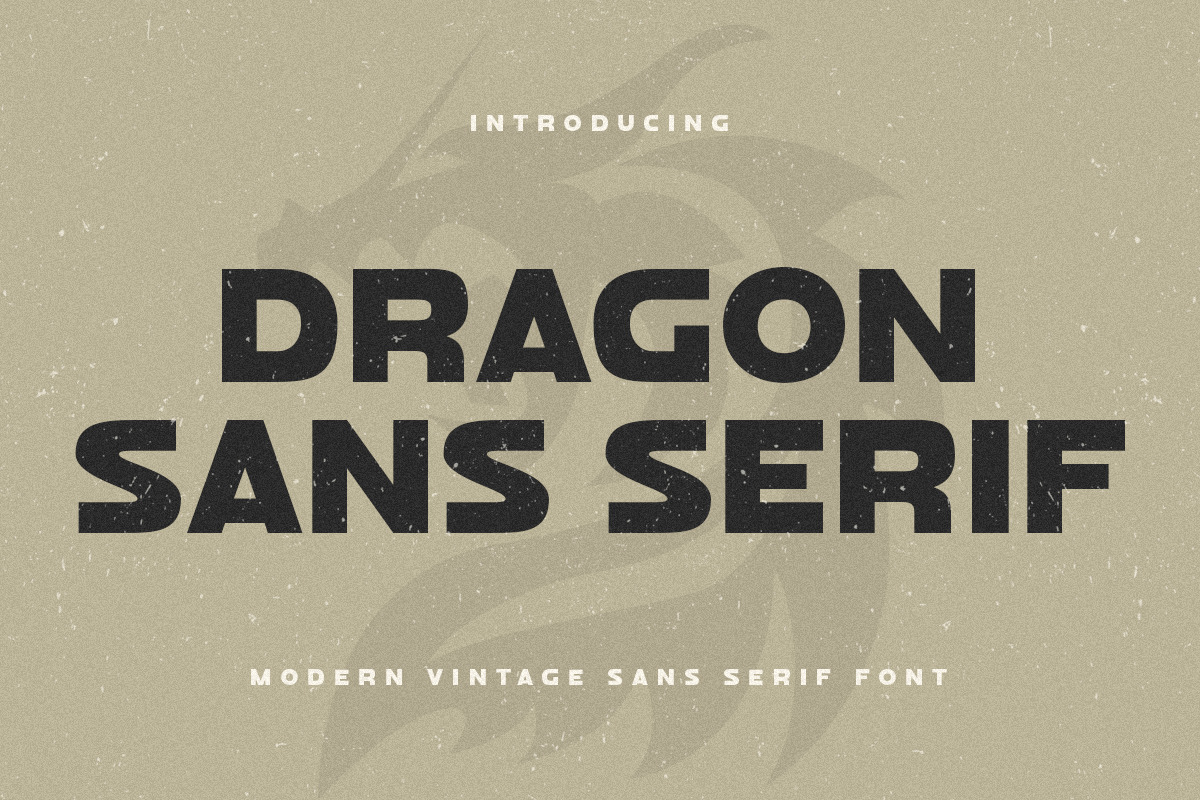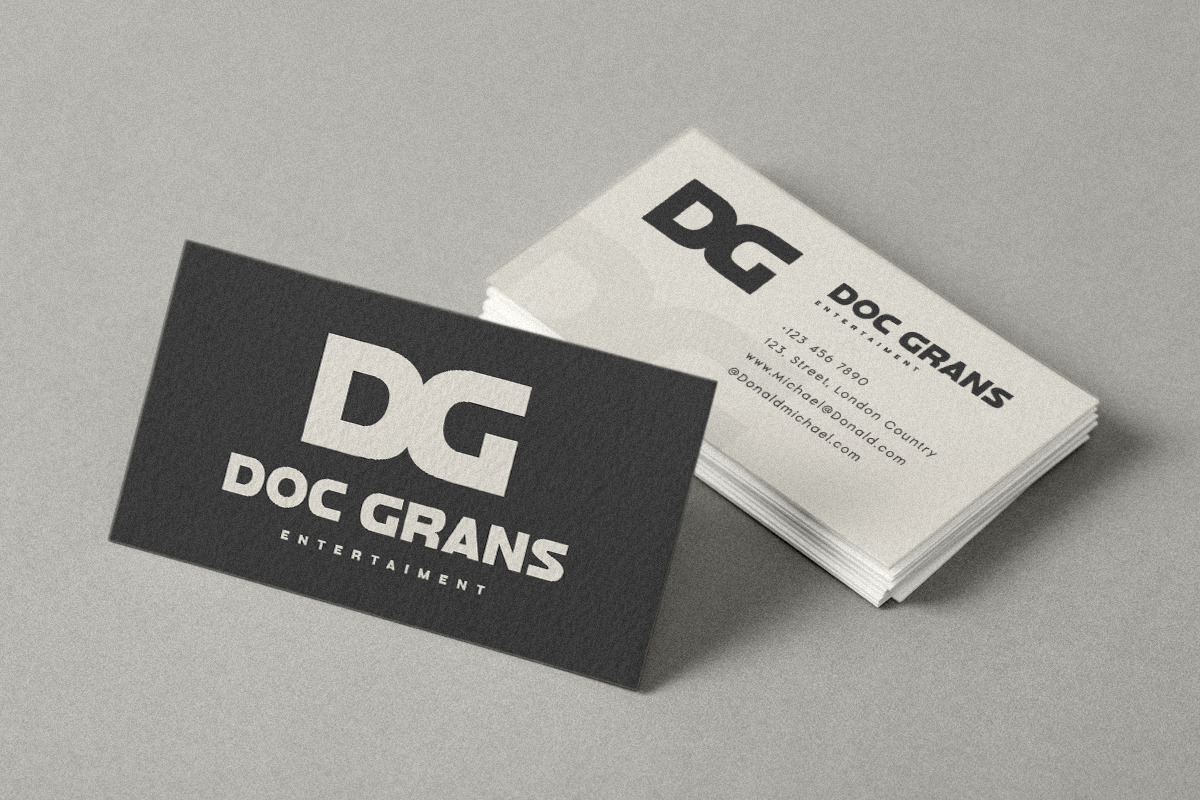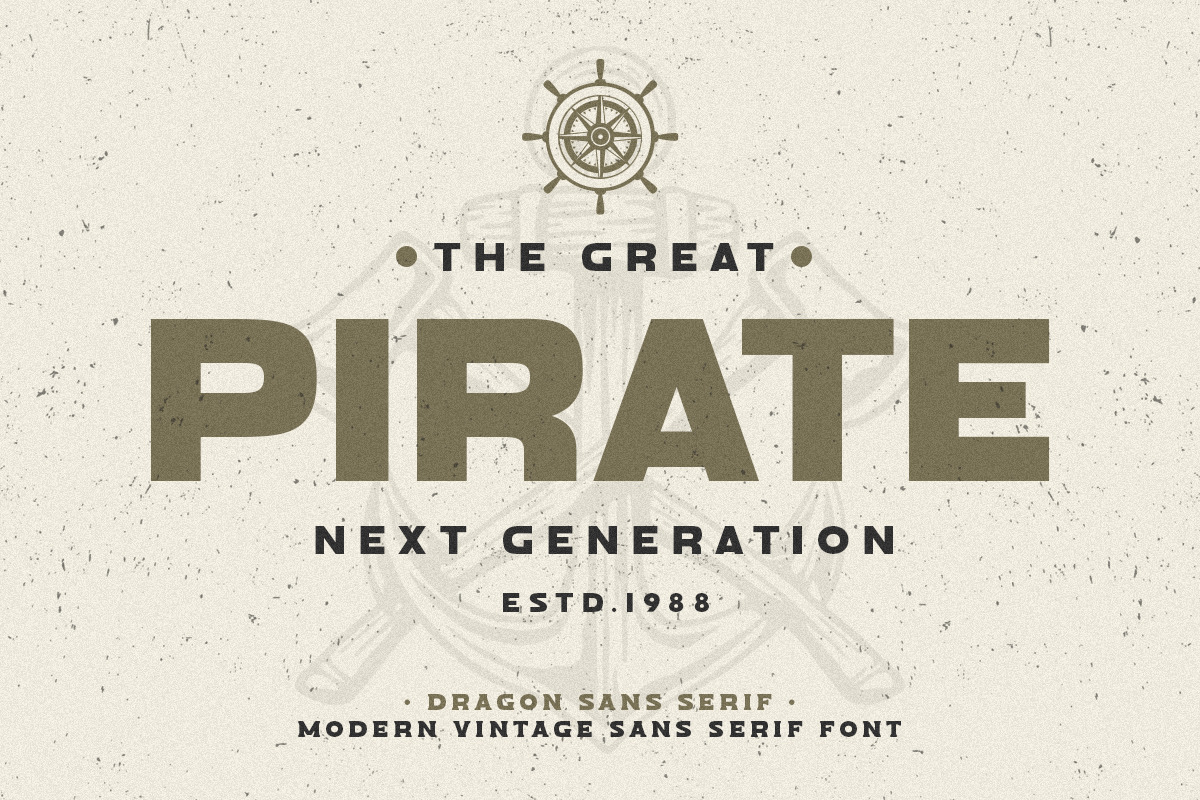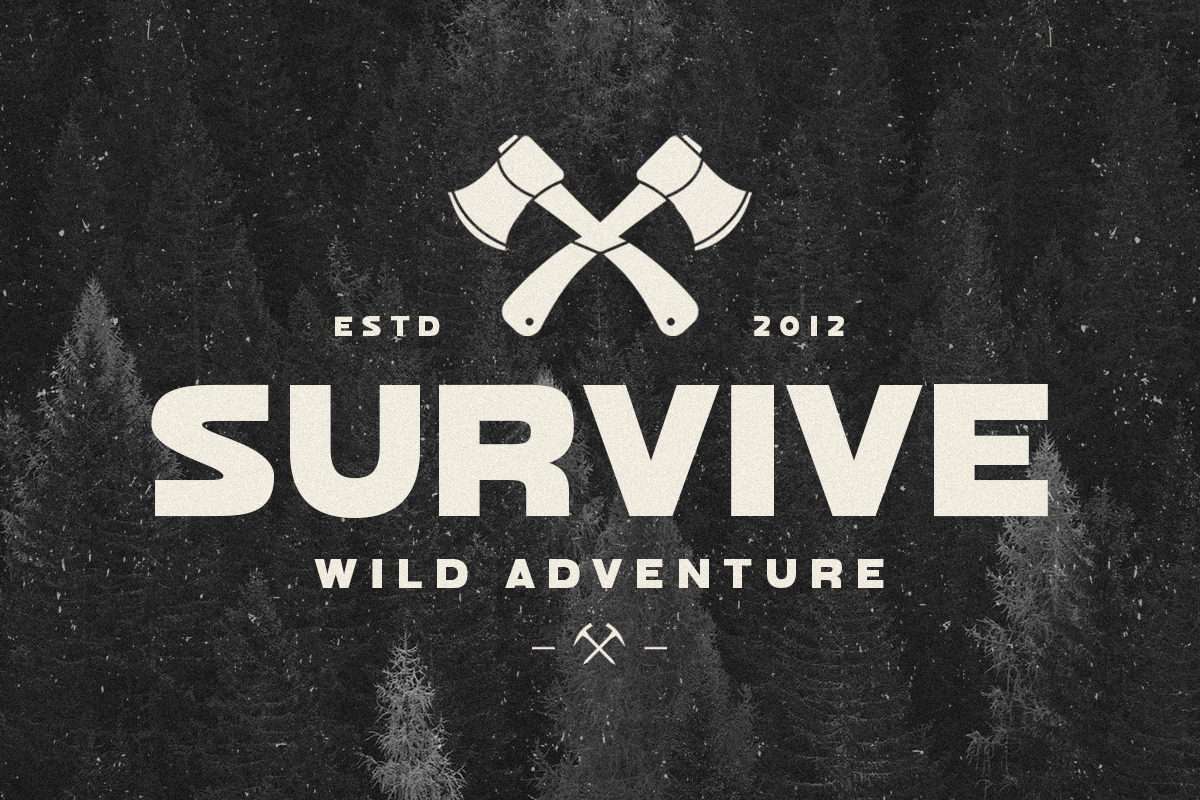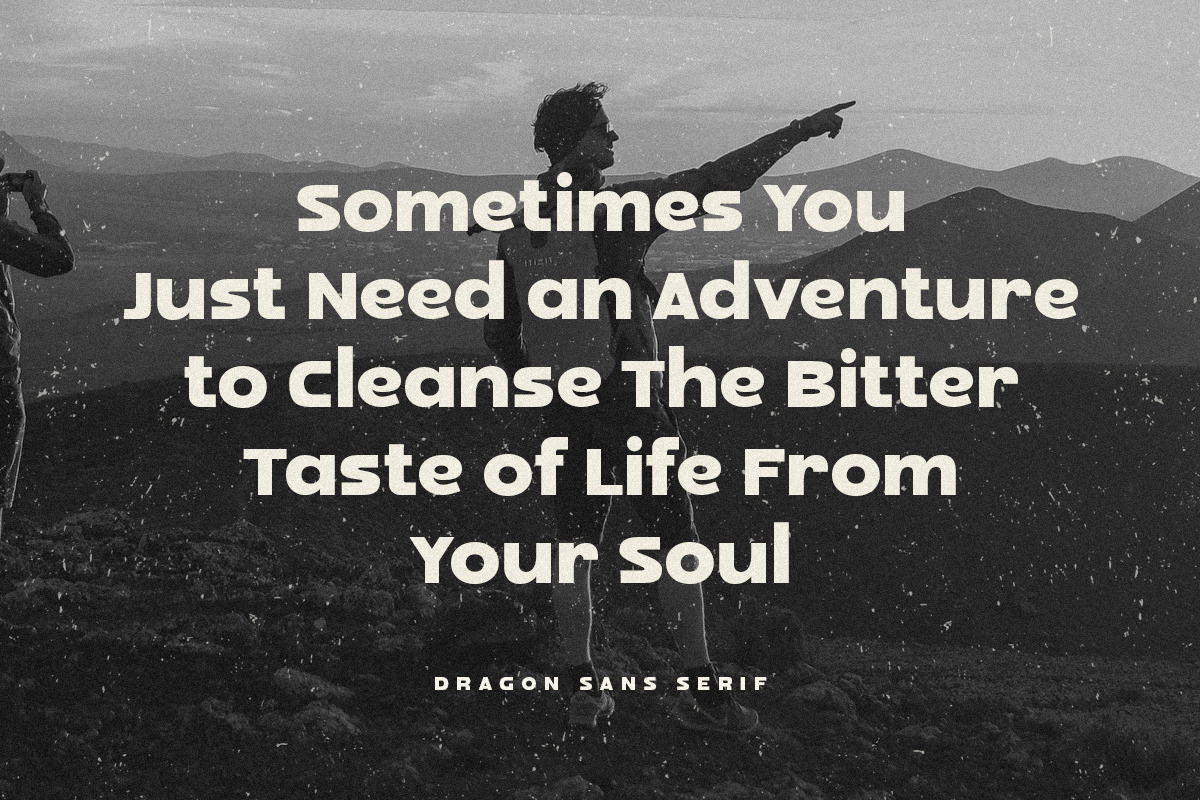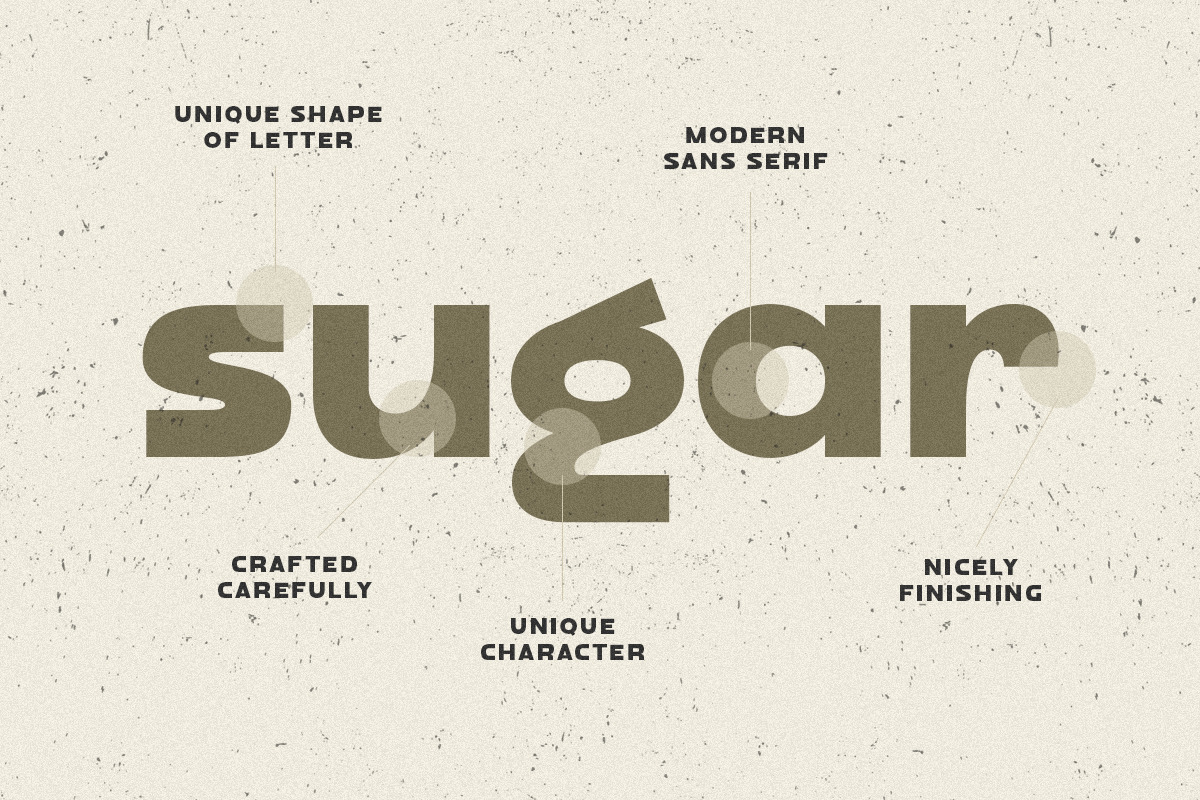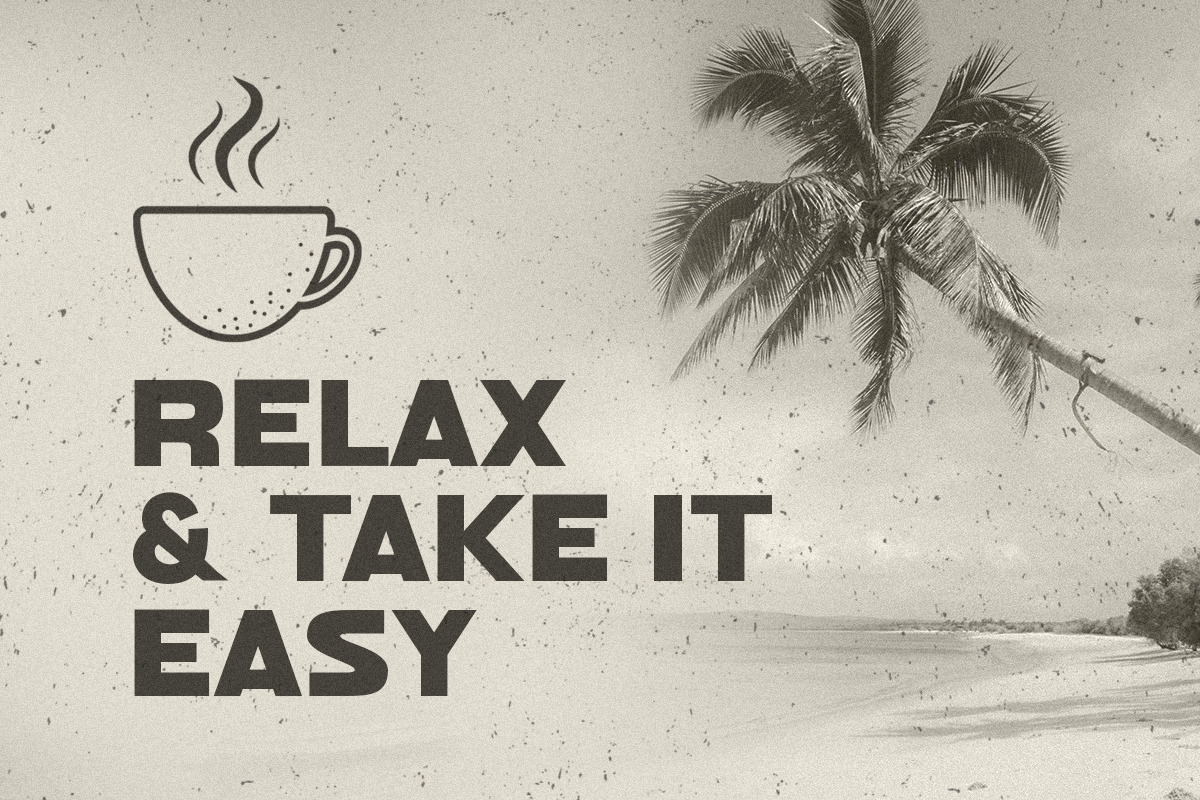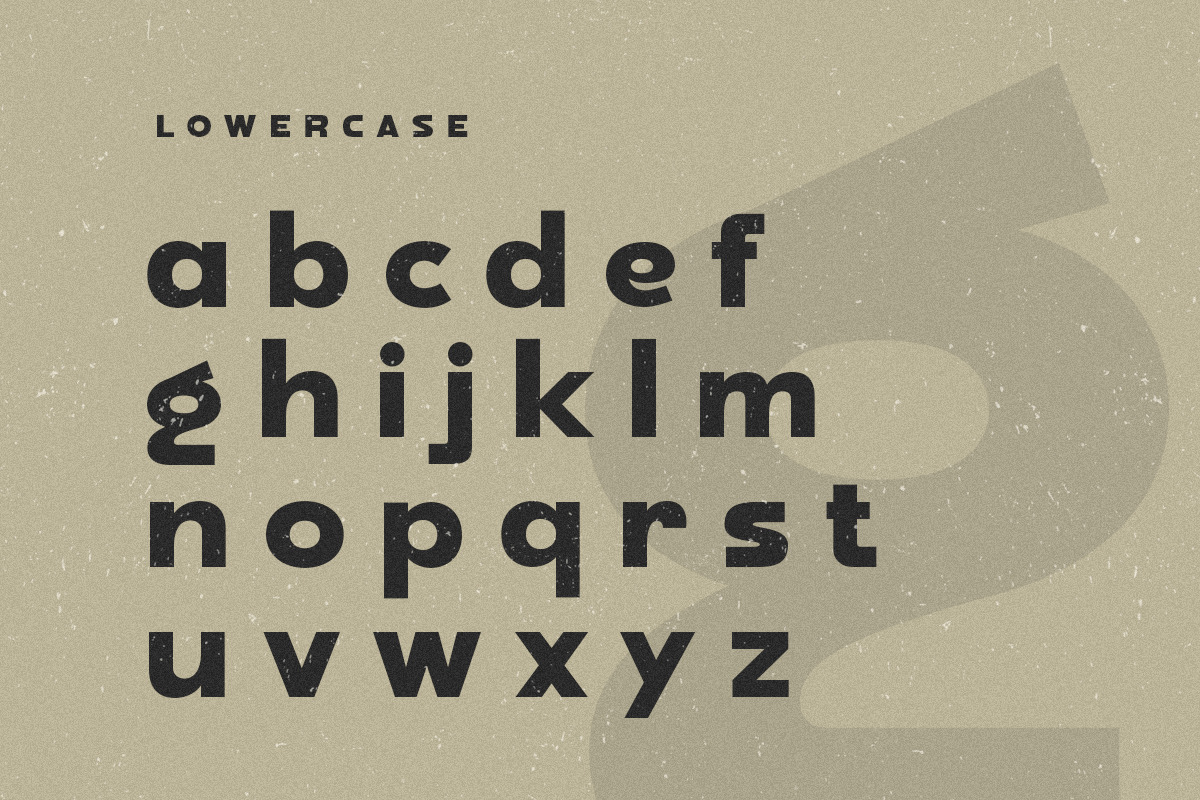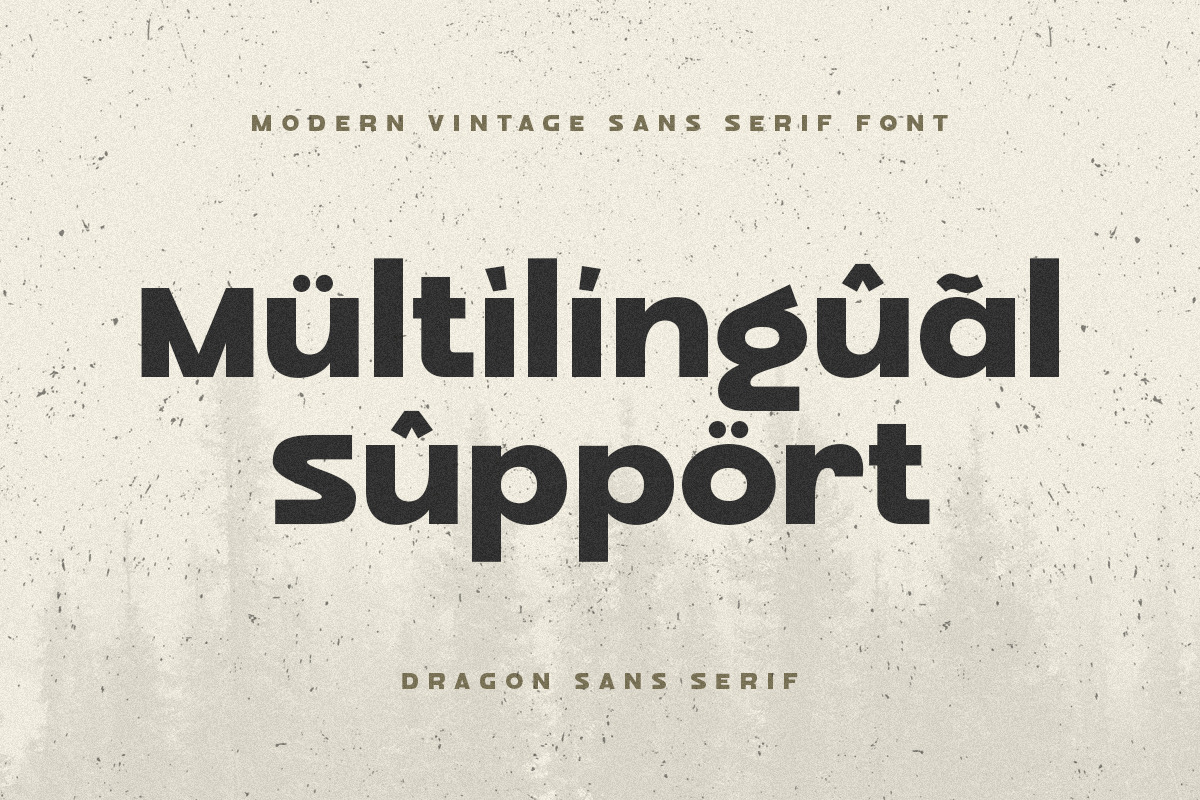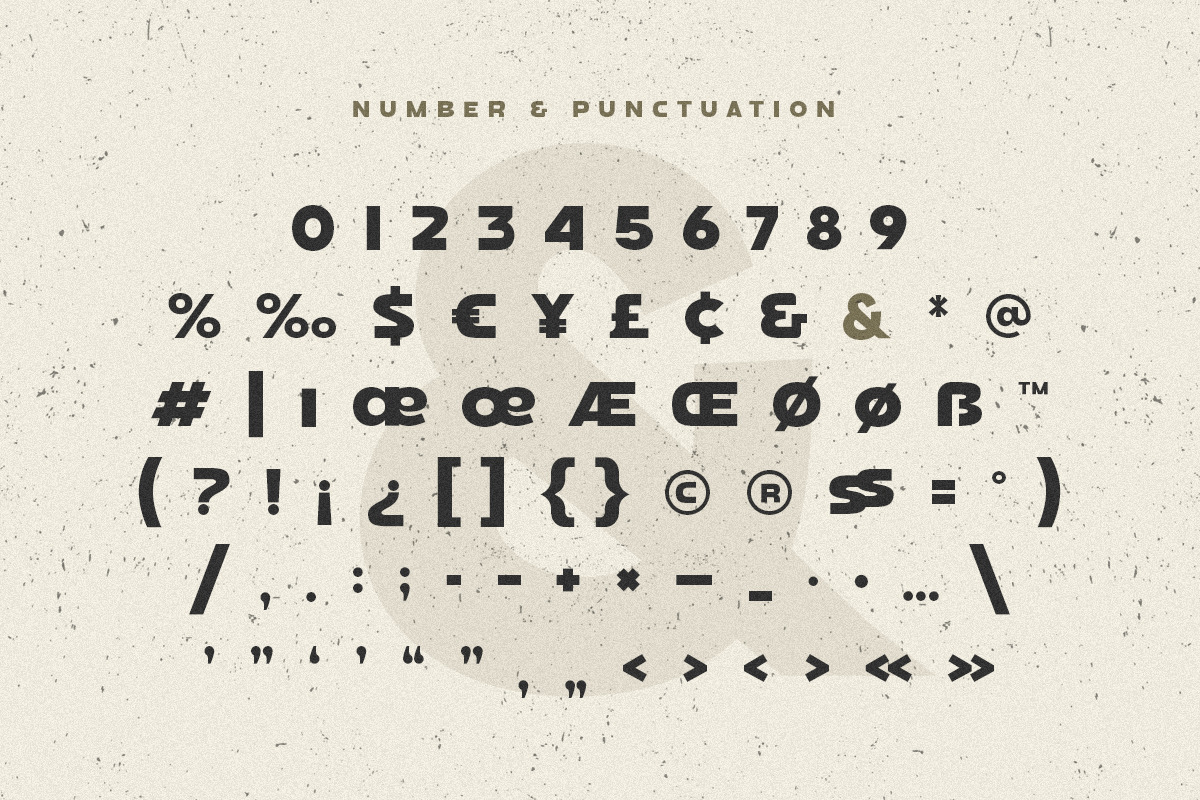
Dragon Sans Serif - Modern Vintage Sans Serif Font
Dragon is a Modern Vintage Sans Serif Font
A New Vintage font that we created special for Unique branding needs, with extra ligature in unique style that ready to add value of your brand. It's so nice to leverage designer or product owner that need solutions to make their design look more unique and vintage.
Dragon Modern Vintage Sans Serif font ready with:
- Lowercase and Uppercase characters
- Numbers and Punctuations